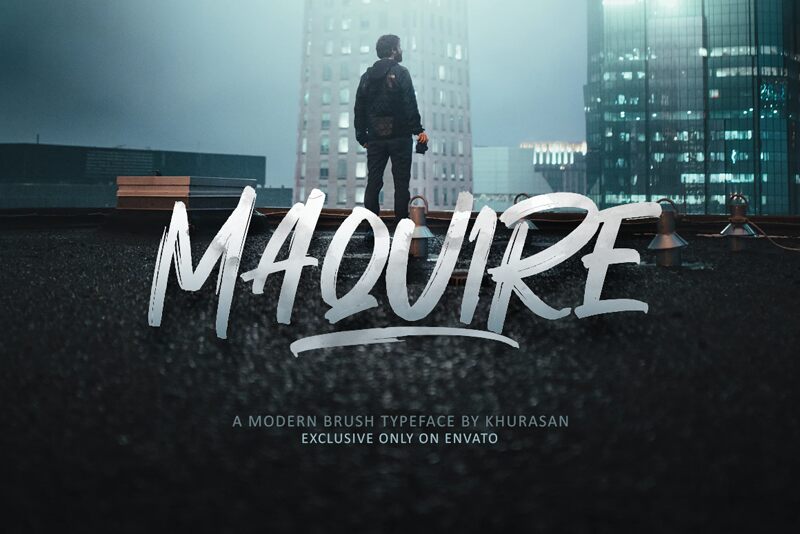
Maguire font family by Khurasan is a spirited and energetic brush typeface presented in 2 font styles. It comes with a modern and dynamic look that makes it ideal for contemporary applications in branding and advertising. The innovative typeface is a free font for personal use only.
Maguire font is expressive and textured with artistic flair and urban appeal. Use it on book covers, album covers, product packaging, clothing, sports branding, magazine articles, social media content, and video games. Website headers, application interfaces, and other branding designs can also be another potential use for this font.